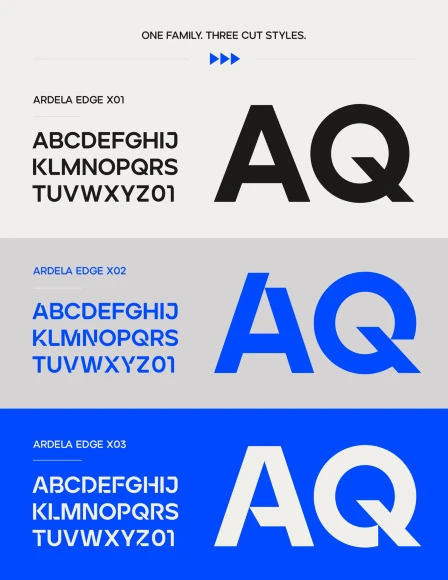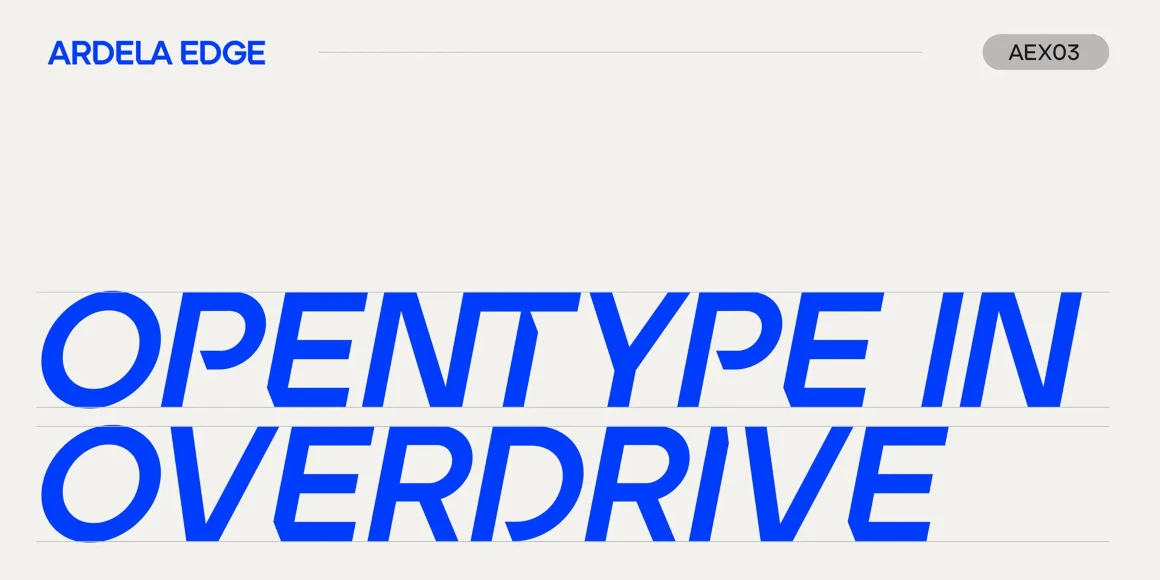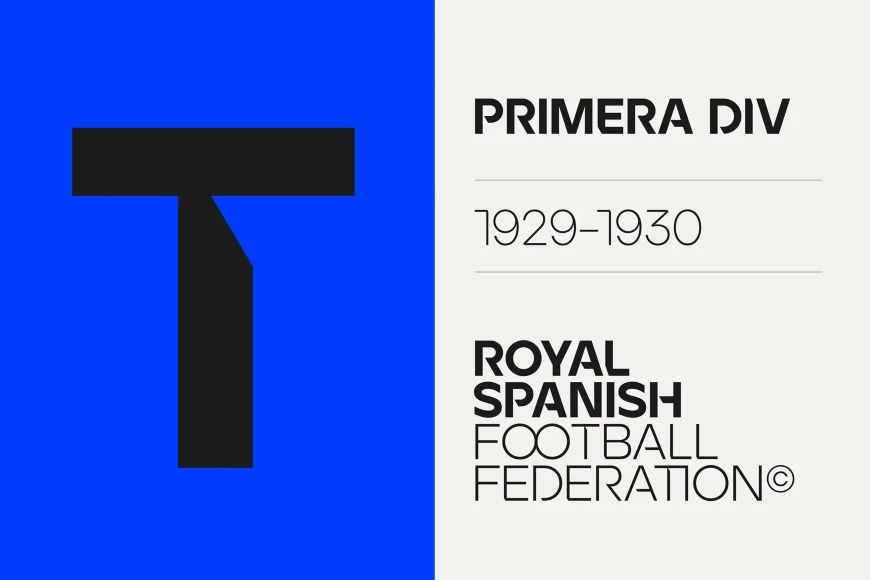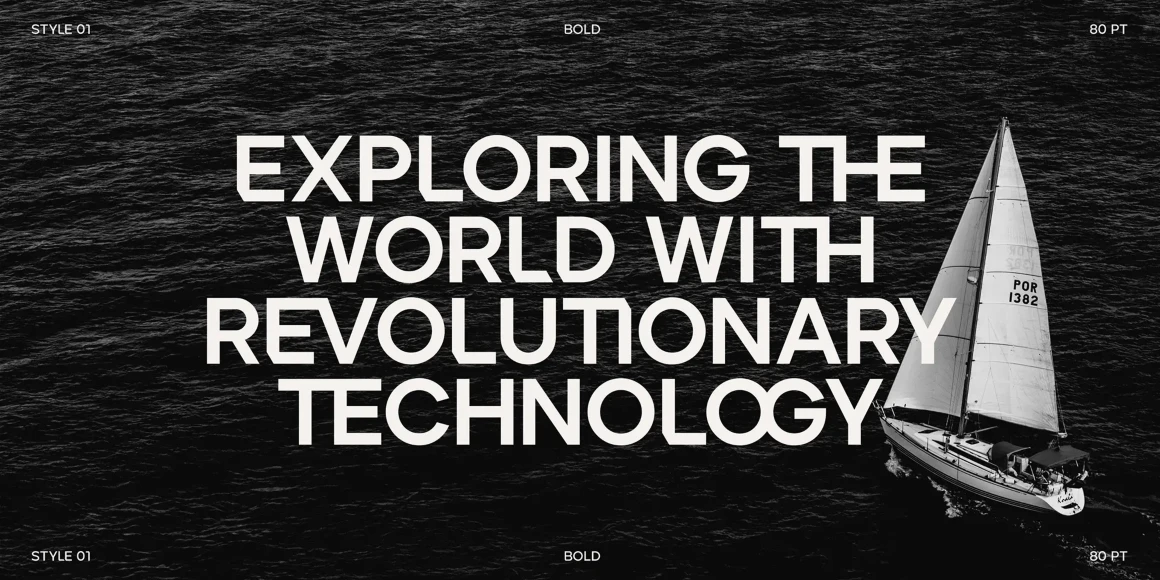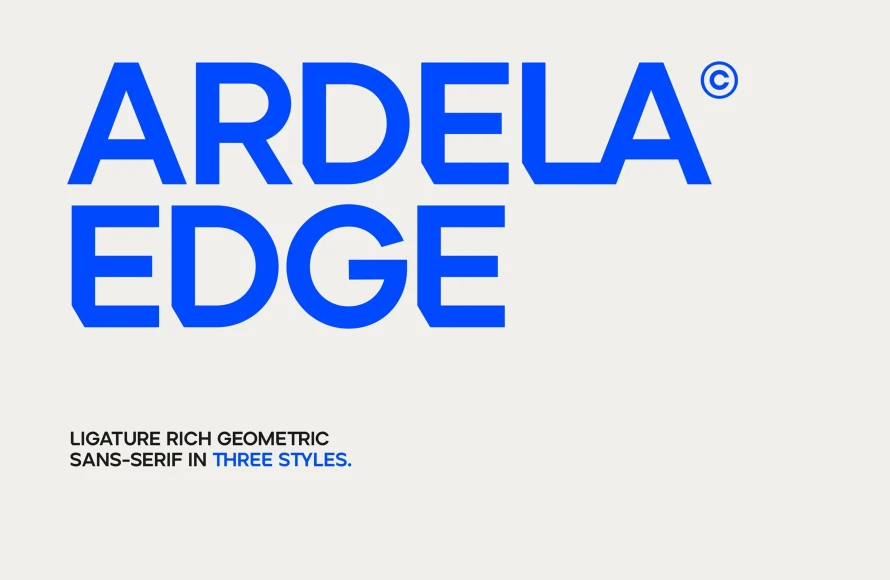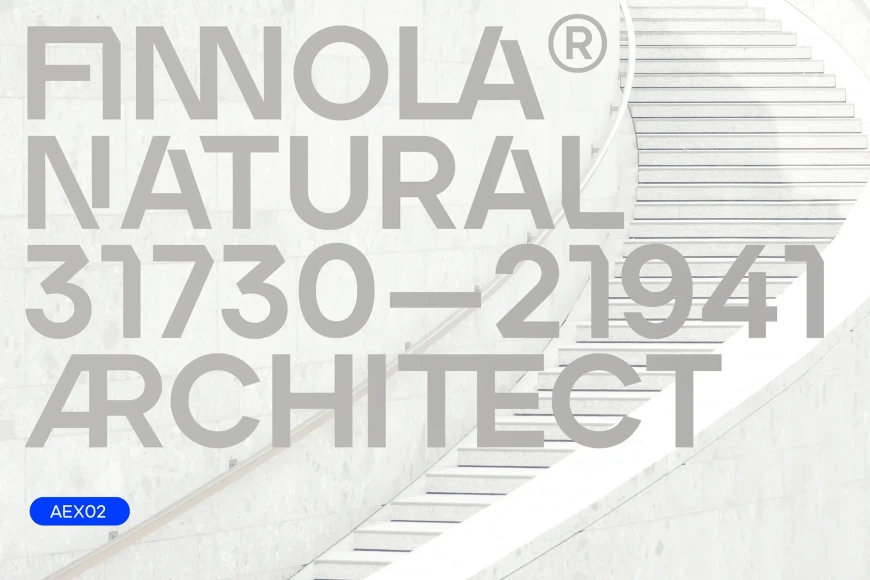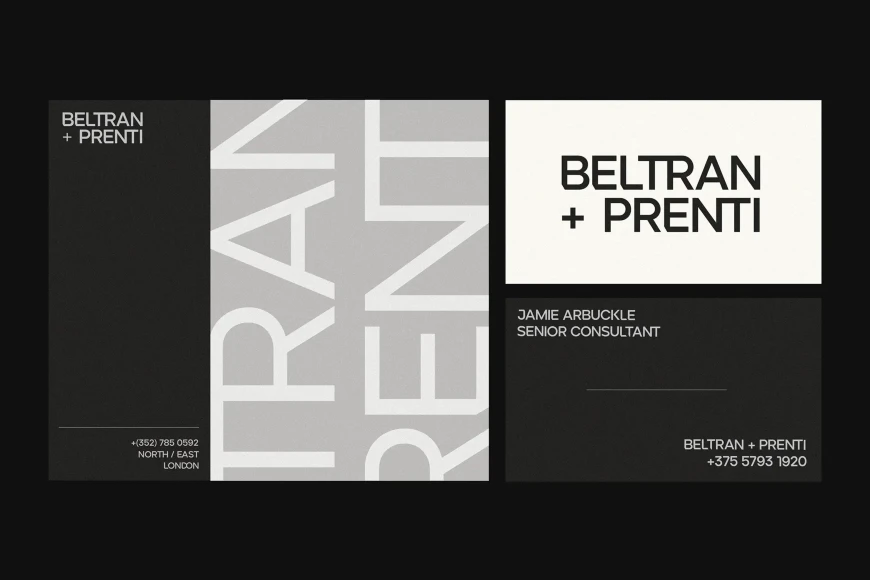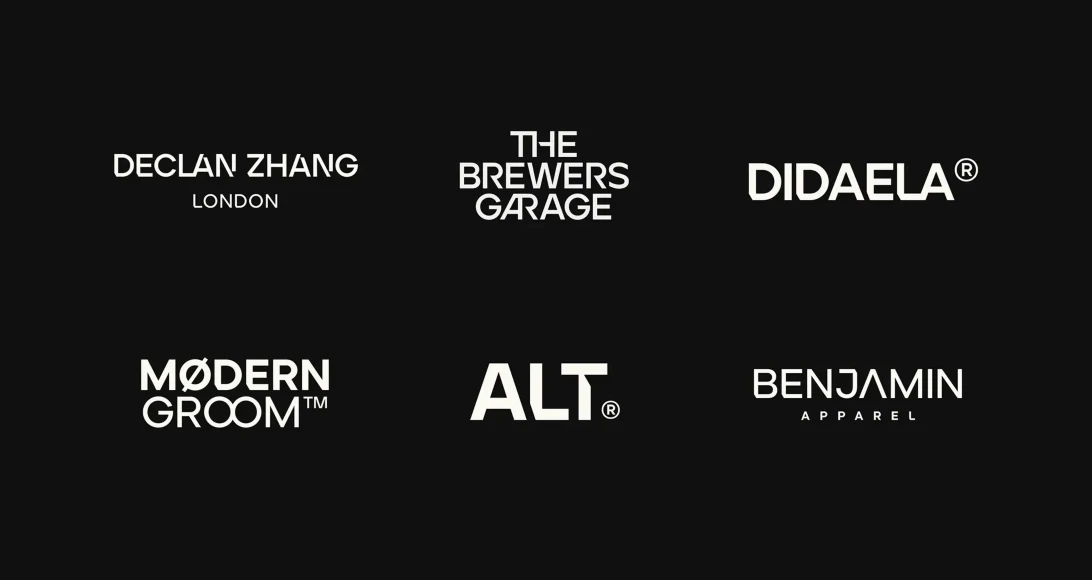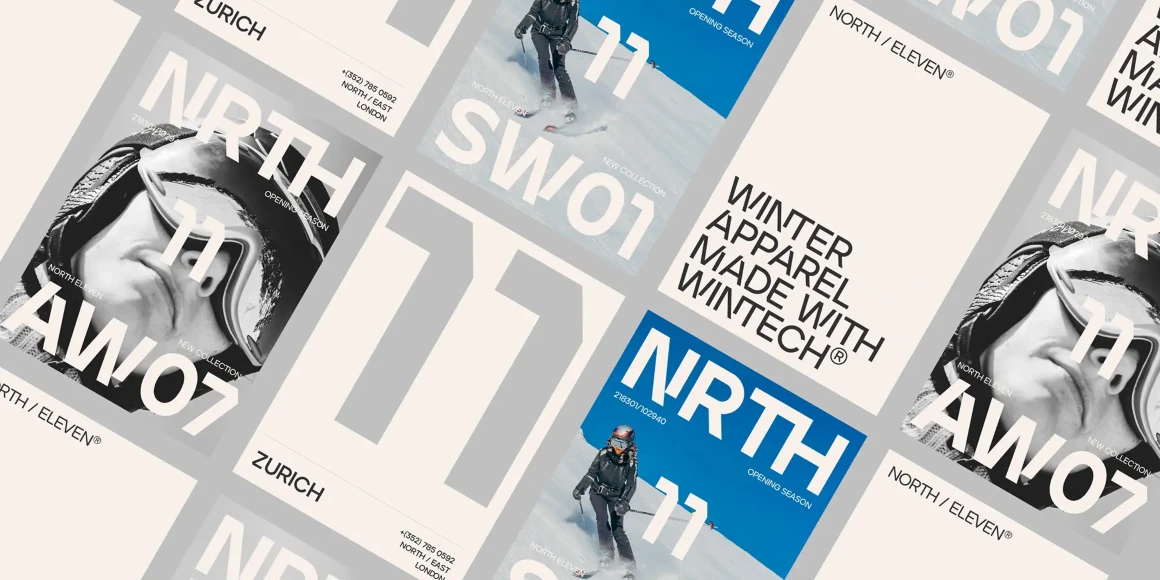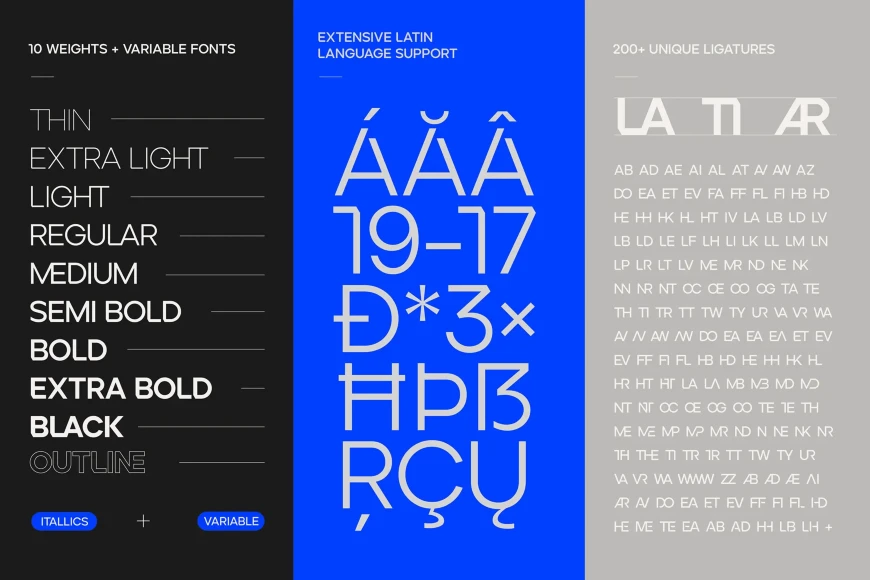
Ardela Edge
Ardela Edge, from Ellen Luff Type Foundry, is a stylized geometric sans serif family with extreme cuts, sharp angles, and multi-sensory interactive ligatures. Each of the three all-caps subfamilies has a distinct style and a different personality. The bold character breaks and considered ligatures create edgy, modern type that feels like bespoke typography. Consider it ideal for book covers, magazine headlines, and film titles.